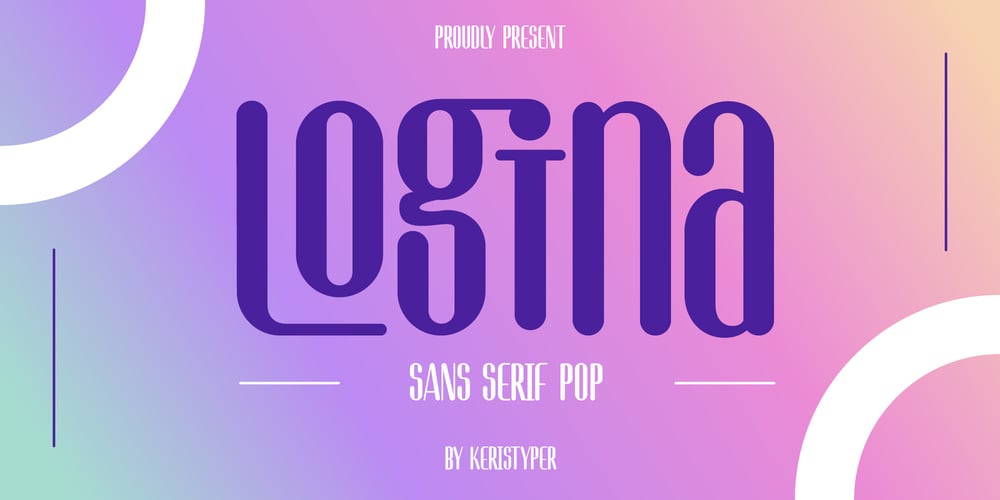
Logina
Logina font
Logina Font Family was designed by Tezar Tantular and published by Keristyper Studio. Logina contains 1 styles and family package options. Introducing Logina, a modern clean typeface, it’s a fresh look with a nice perfect rounded shape. This font is good for logo design, Social media, Movie Titles, Books Titles, short text even long text letters, and good for your secondary text font with sans or serif.**Featured:*** Standard Uppercase & Lowercase* Numeral & Punctuation* Multilingual : ä ö ü Ä Ö Ü ß ¿ ¡* Alternate & Ligature* PUA encodedWe recommend programs that support the OpenType feature and the Glyphs panel such as Adobe applications or Corel Draw. so you can use all the variations of the glyphs.Hope you enjoy our fonts!